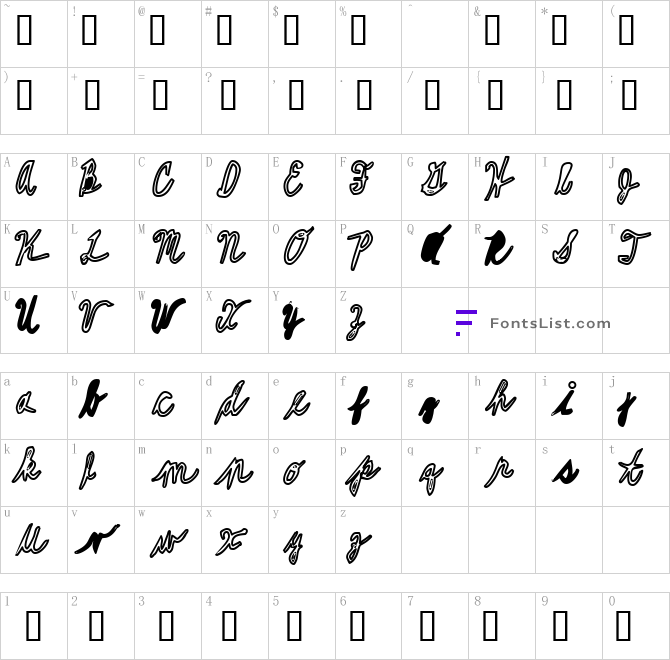
- Font Name:Avoid Long Lines
Avoid-Long-Lines-1.ttf is a very beautiful artistic font, Avoid-Long-Lines-1.ttf is widely used in the design and printing of various books and pictures,Avoid-Long-Lines-1.ttf has a strong visual impact,Avoid-Long-Lines-1.ttf is a commonly used font in newspapers, magazines and books, and is used in posters, e-commerce Poster design, store design, logo design, font design and other fields.Avoid-Long-Lines-1.